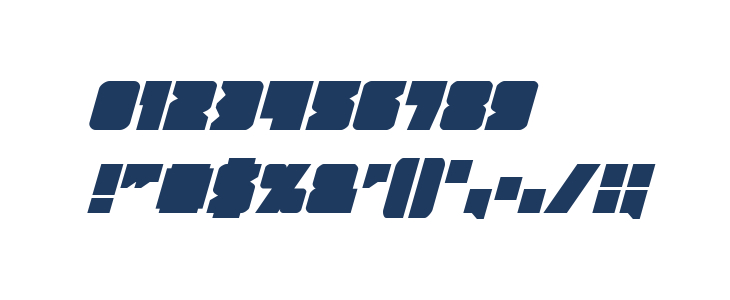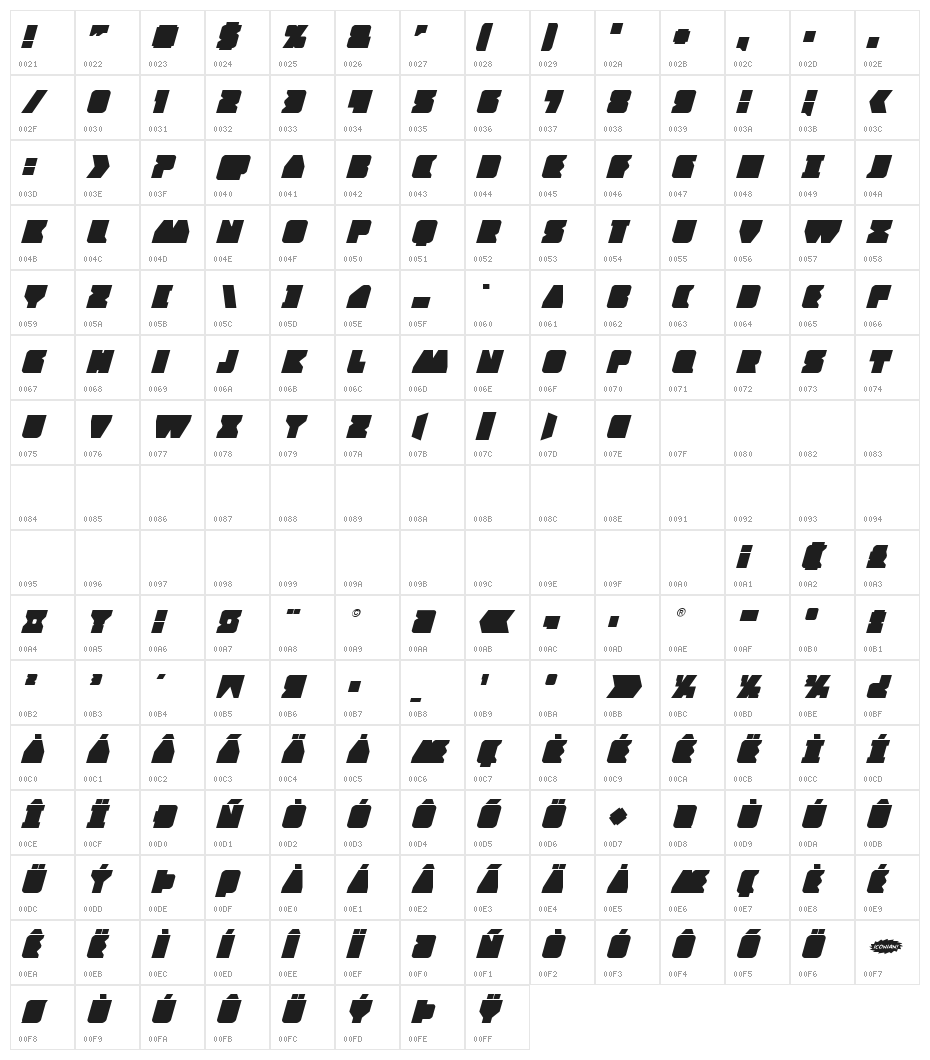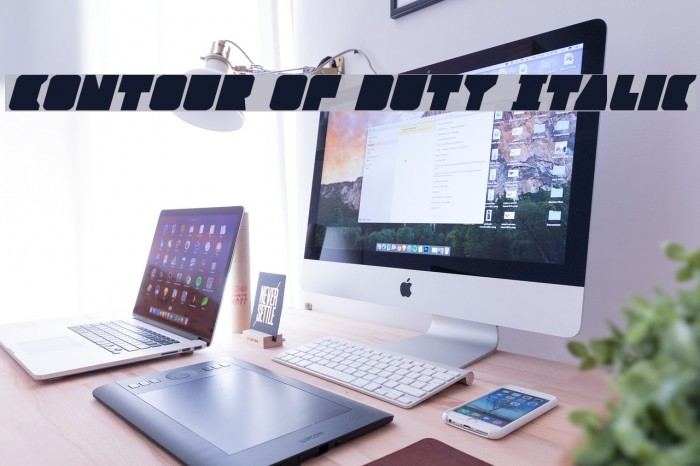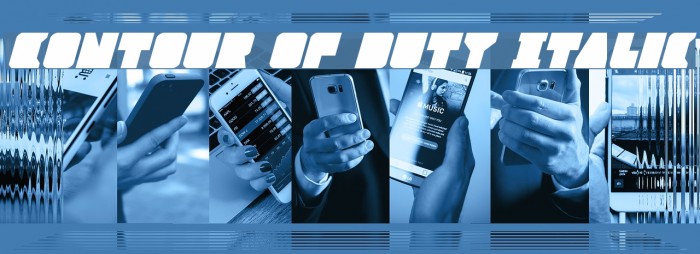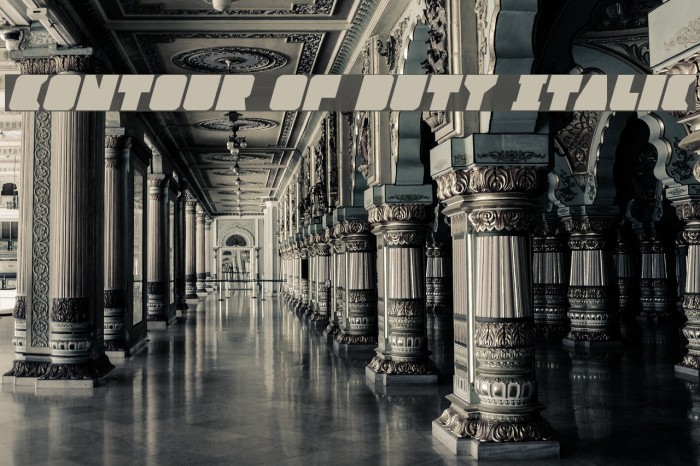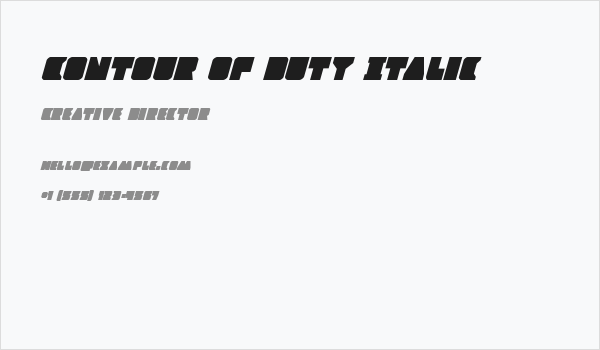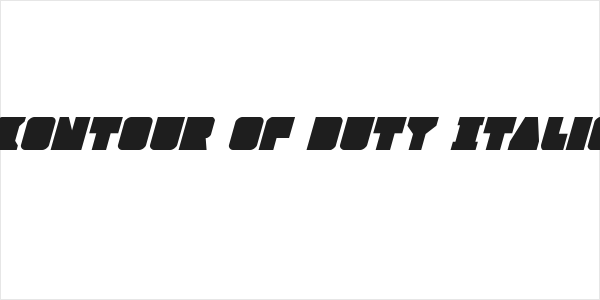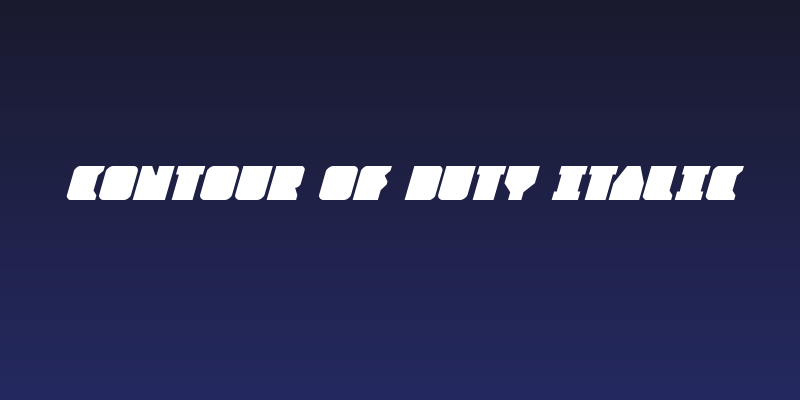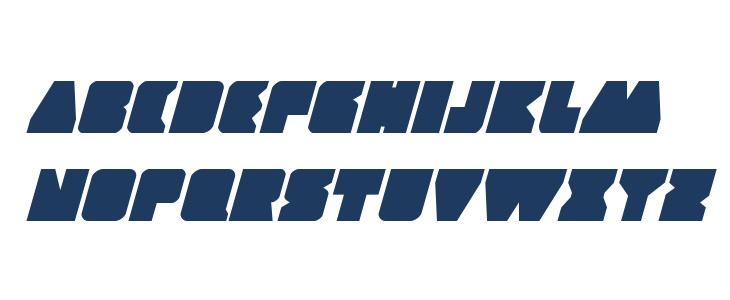
Contour of Duty Italic Font
Contour of Duty Italic Description
This font exhibits a bold and dynamic style with a strong italic slant, creating a sense of movement and urgency. The characters are blocky and geometric, with sharp angles and a solid, filled appearance. The design is reminiscent of military or industrial themes, making it suitable for projects that require a robust and commanding presence. The uppercase and lowercase letters maintain a consistent weight, while the numbers and special characters follow the same bold and angular design. The overall look is modern and impactful, ideal for attention-grabbing headlines or logos.
Proposed ProjectsIdeal for military-themed designs, video game titles, posters, and logos that require a strong and impactful presence.